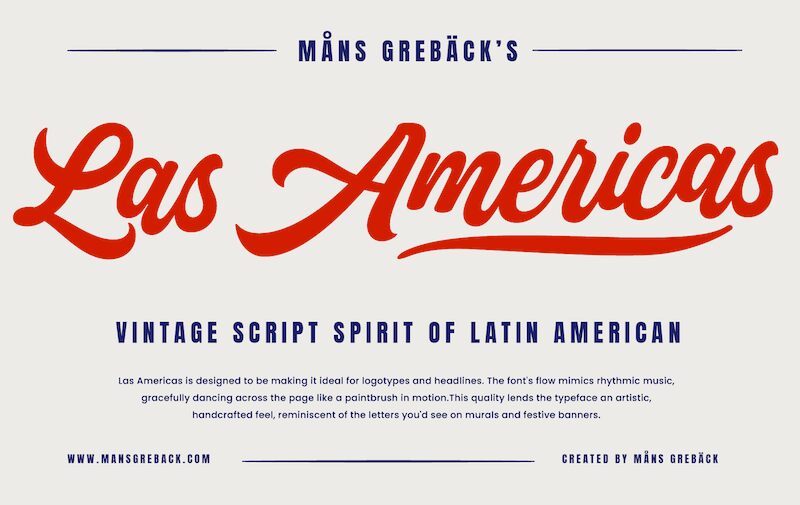
Las Americas is a bold, captivating script typeface crafted by Mans Greback. Its heavy, confident strokes evoke a vibrant, energetic spirit, commanding attention with their vintage-inspired flair. The distinctive brush-like aesthetic lends an authentic, handcrafted feel to any design, imbuing it with a sense of personality and character.
This versatile font shines in a variety of contexts, from eye-catching headlines and impactful logos to stylish branding and editorial layouts. Its bold, expressive nature makes it an excellent choice for projects seeking to convey a strong, confident visual identity, while the vintage-inspired aesthetics lend a timeless, sophisticated appeal.
Use one or multiple underscores _ anywhere in the word to create a swash.
Examples: Amer_icana Oce___anic